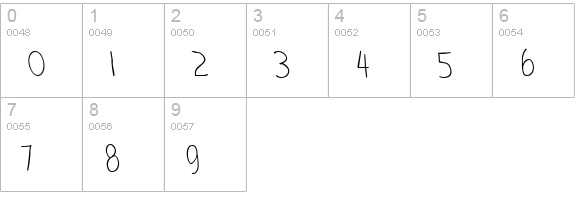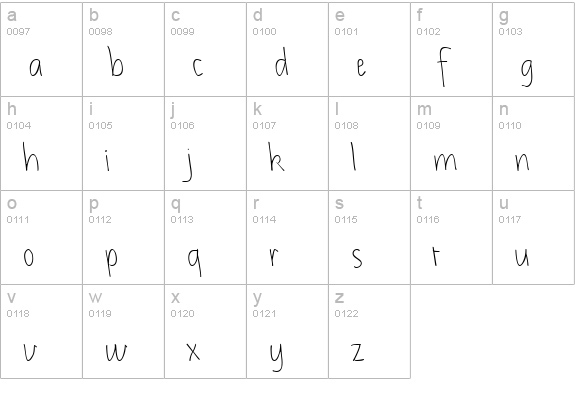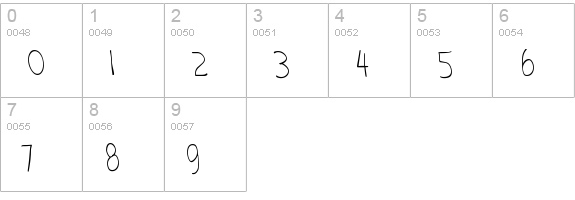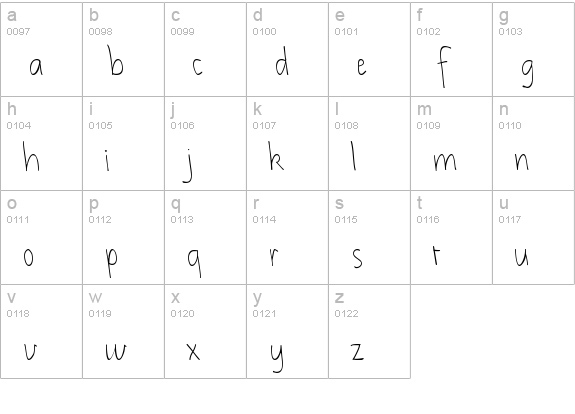
NotehandLefty Regular is the standard, neutral variant in the NotehandLefty typeface family \xE2\x80\x94 well suited to general body text, paragraphs, and standard typographic work.
NotehandLefty Regular font is a modern and stylish typeface designed for left-handed writers. With its smooth curves and flowing strokes, this font is perfect for creating elegant and legible handwriting. Whether you're working on a project that requires a touch of sophistication or just want to add a unique flair to your designs, NotehandLefty Regular is the perfect choice. Best of all, NotehandLefty Regular is available for free download at FontsMarket.com. This means you can easily access this high-quality font without having to spend a dime. So why wait? Download NotehandLefty Regular today and start adding a touch of elegance to your projects.